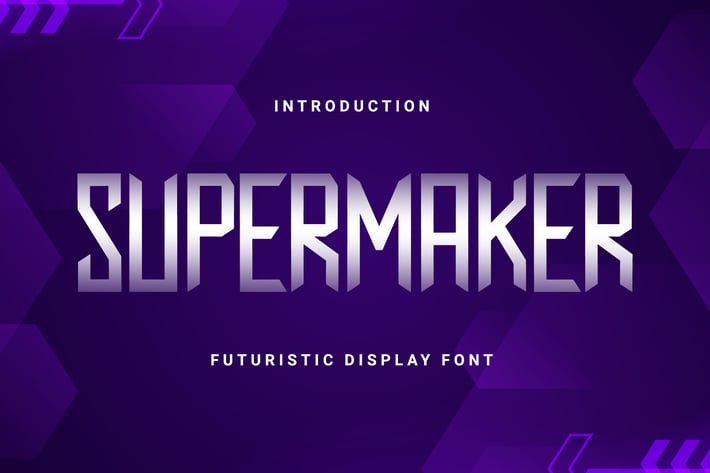
Supermarker - Futuristic Display Font
Supermarker is a unique display typeface perfect for titles, large text, branding, logotypes & graphic design purposes such as posters, pamphlets, and advertisements. This letter font can be a great choice for creating amazing logos, promotional content, and marketing presentations that can bring uniqueness and freshness at its best.
Uppercase and Lowercase letters
Numbering and Punctuations